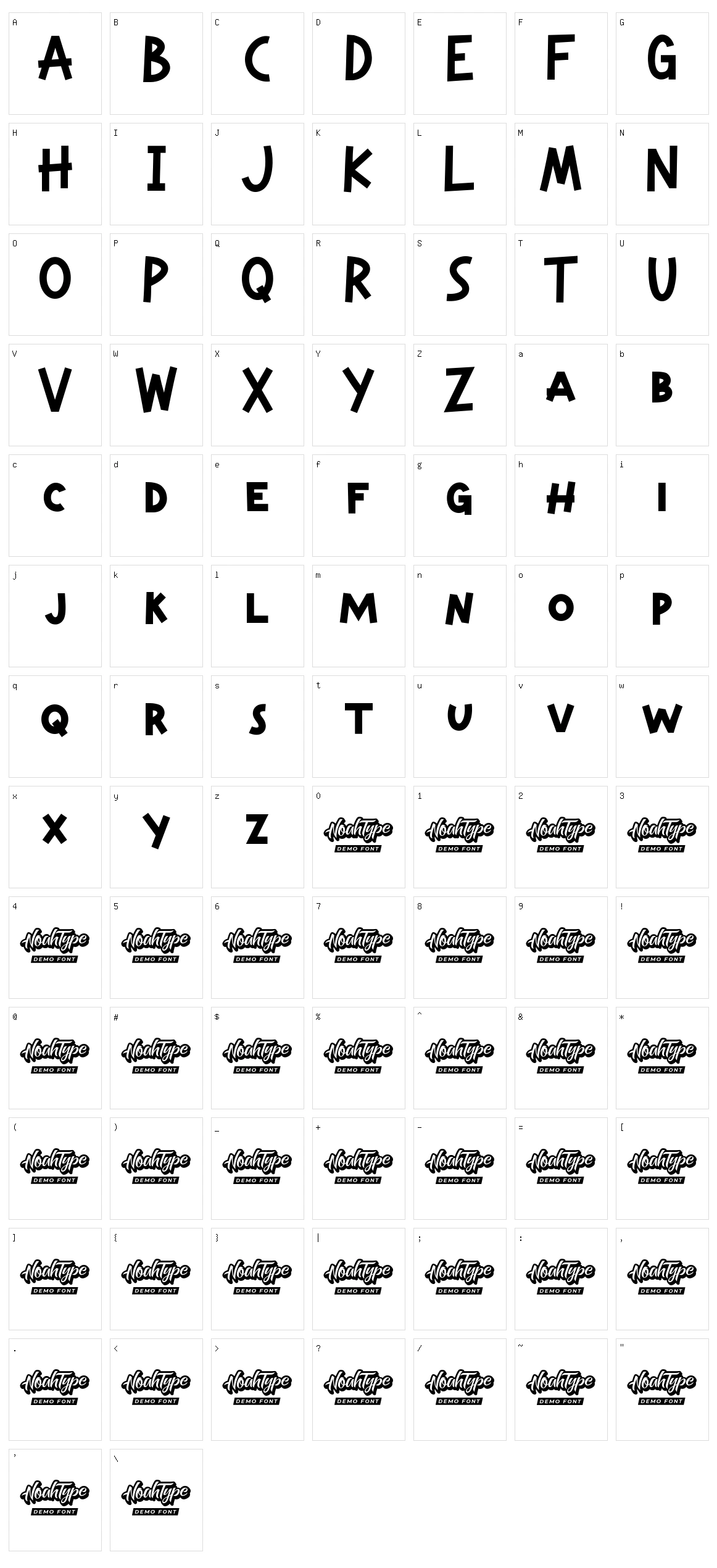
The free font Komic Sunday is carefully designed by Noah Type, showcasing a thoughtful balance of creativity and usability and falls under the Cartoon font style. When you download the ZIP file, it contains only 30.46 KB of font files, making it lightweight and quick to download. Please review the license details below to understand permitted usage and distribution rights. If license information is not available, we recommend using this font for personal projects only or contacting the author directly for commercial usage permissions.